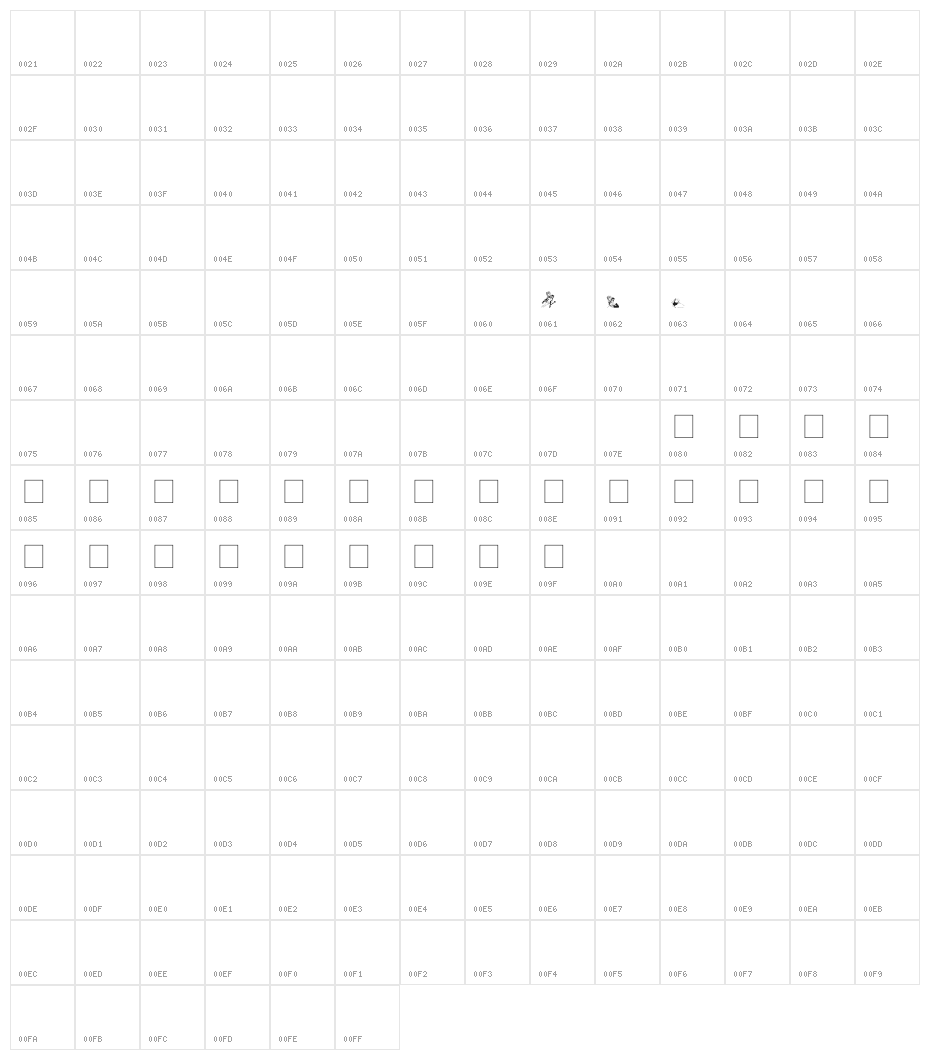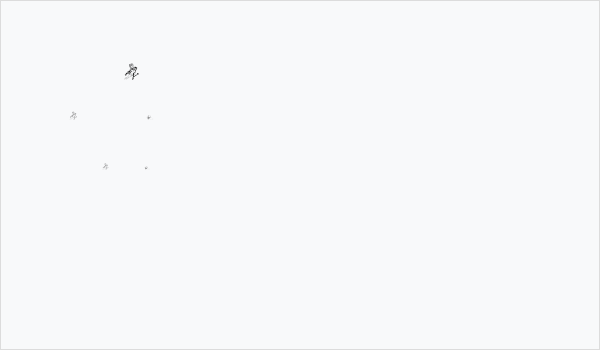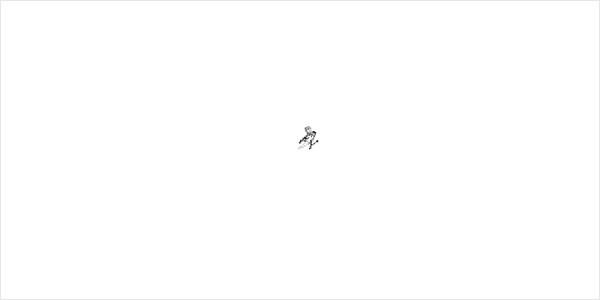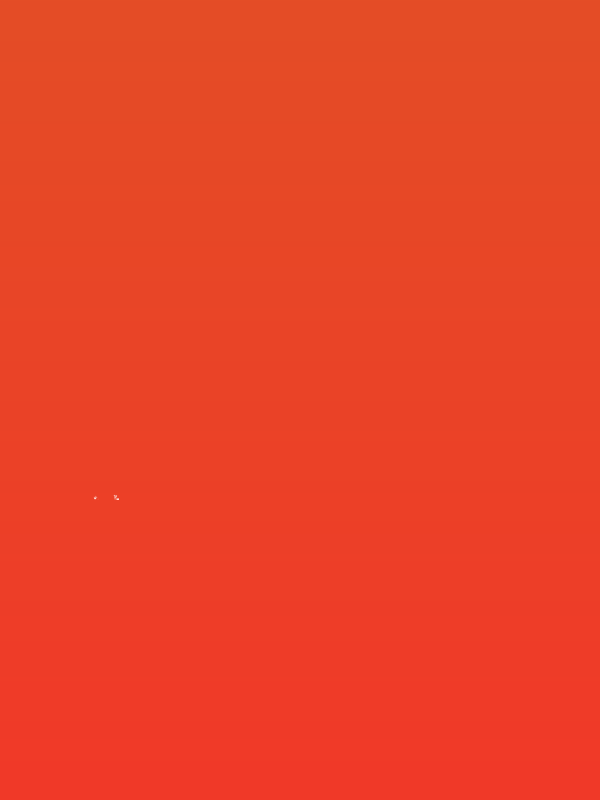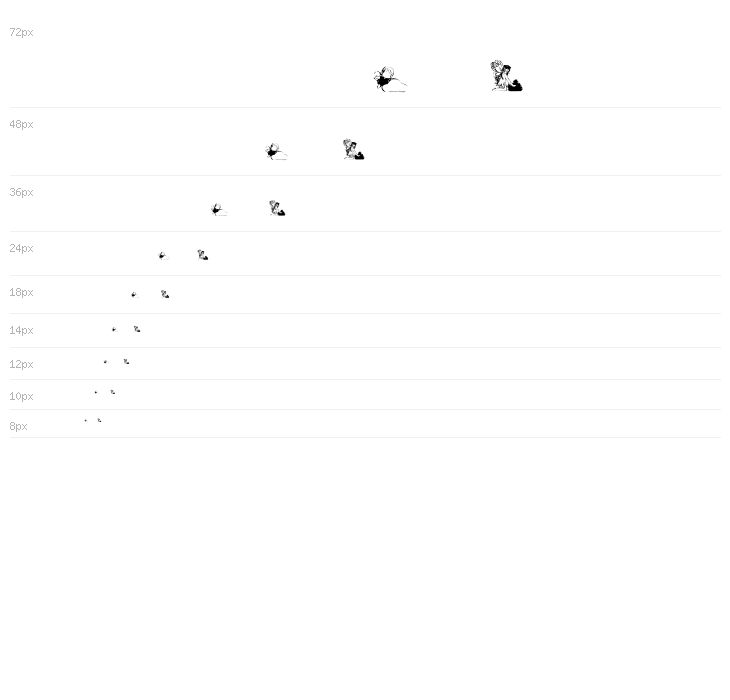
AEZfairies Font
AEZfairies Description
A decorative dingbat font featuring detailed illustrations of fairies in various poses, rendered in black and white with intricate line work and whimsical elements.
| Overall Style | Decorative, Whimsical, Fantasy |
| Use Case | Decorative elements, Illustrative accents, Themed designs |
| Proposed Projects | Children's books, fantasy-themed invitations, scrapbooking, greeting cards, decorative borders. |